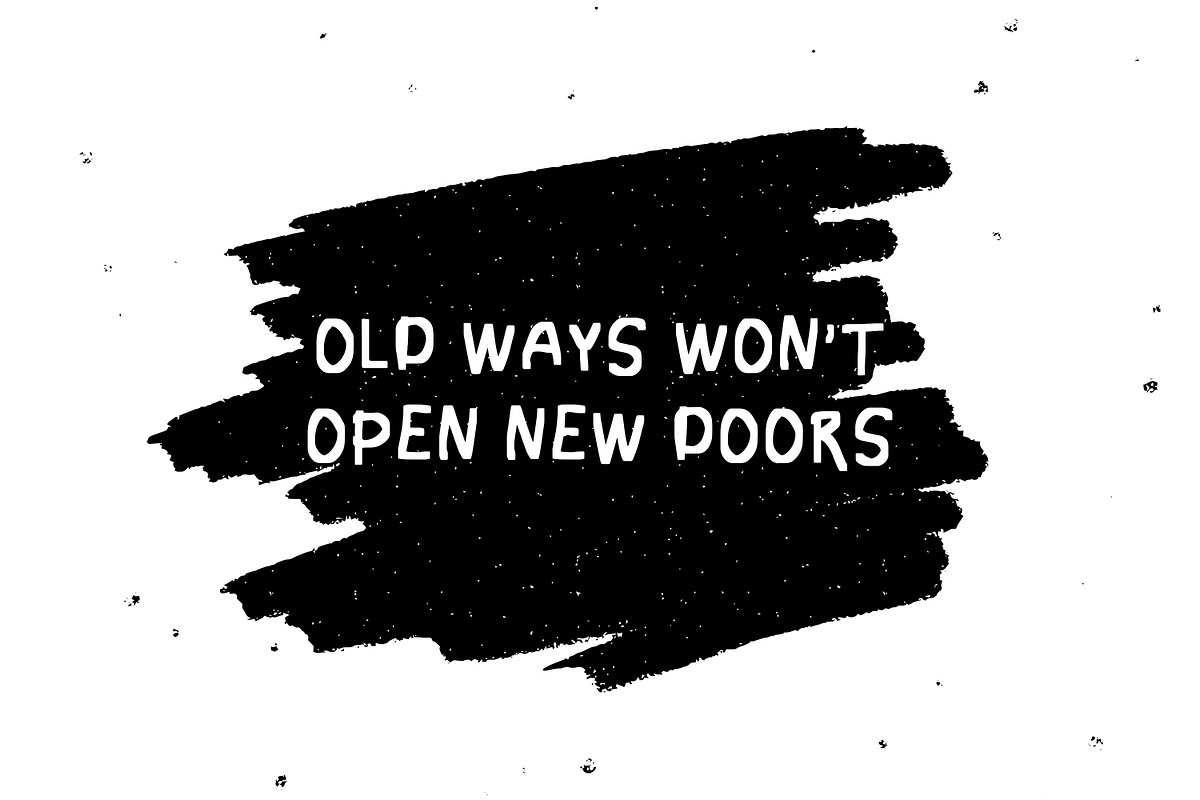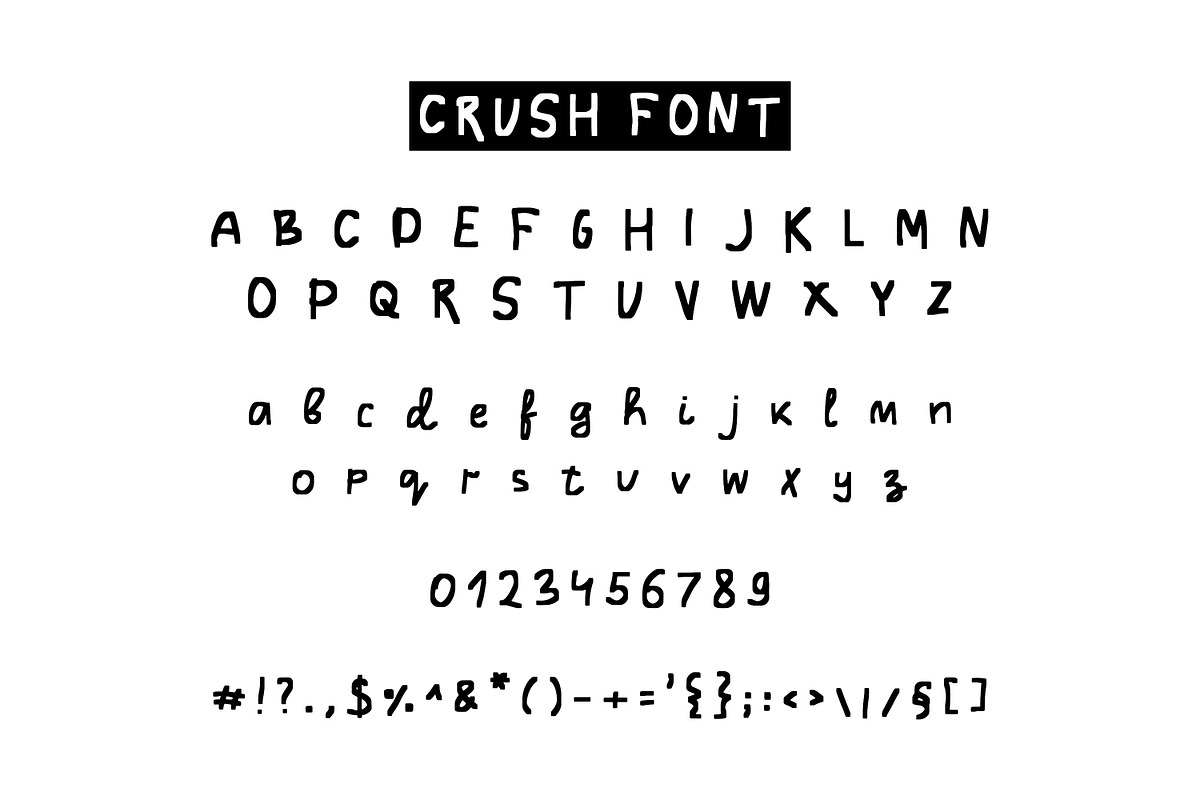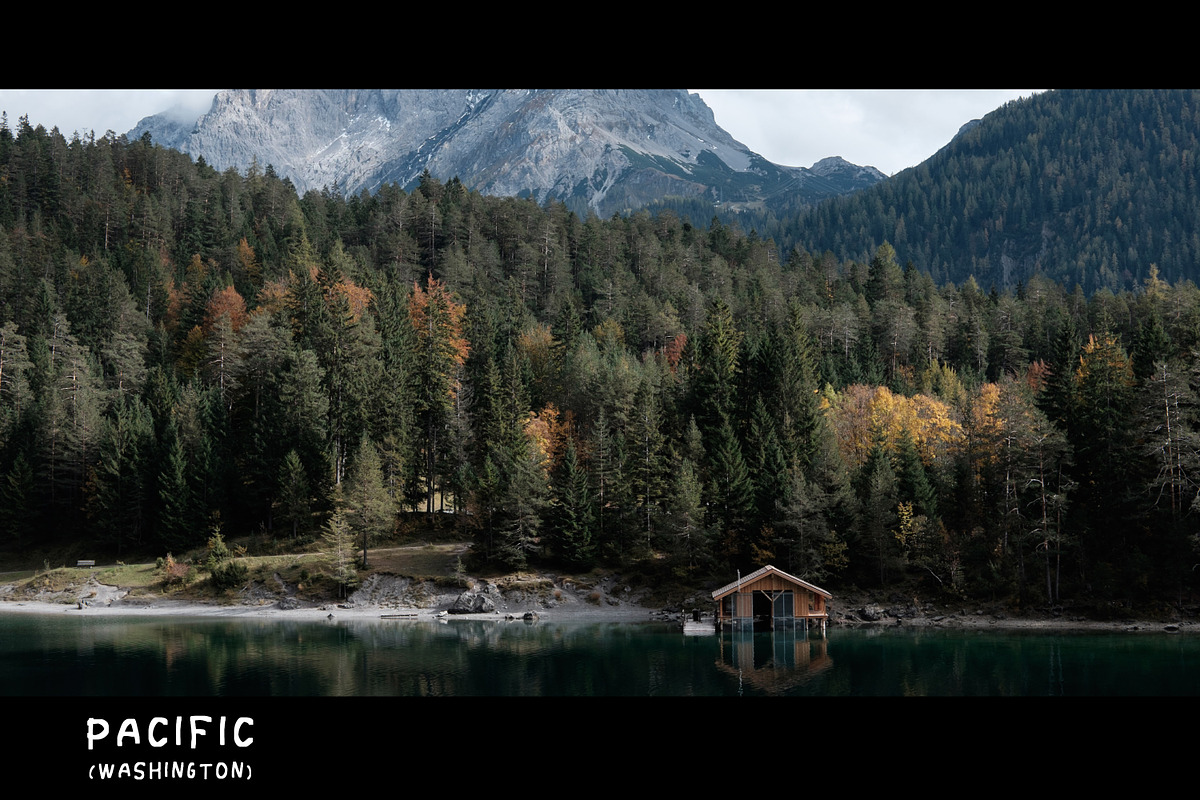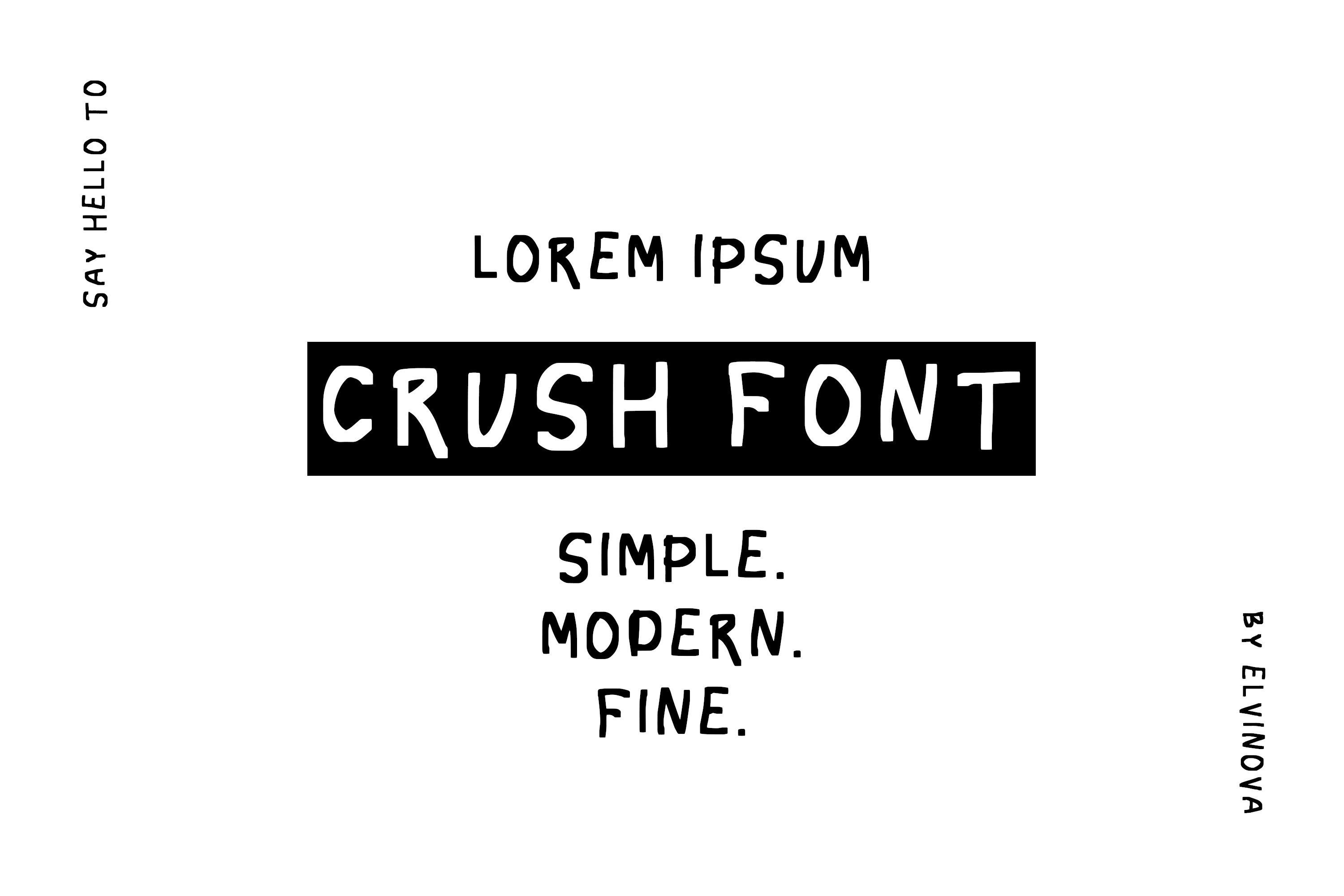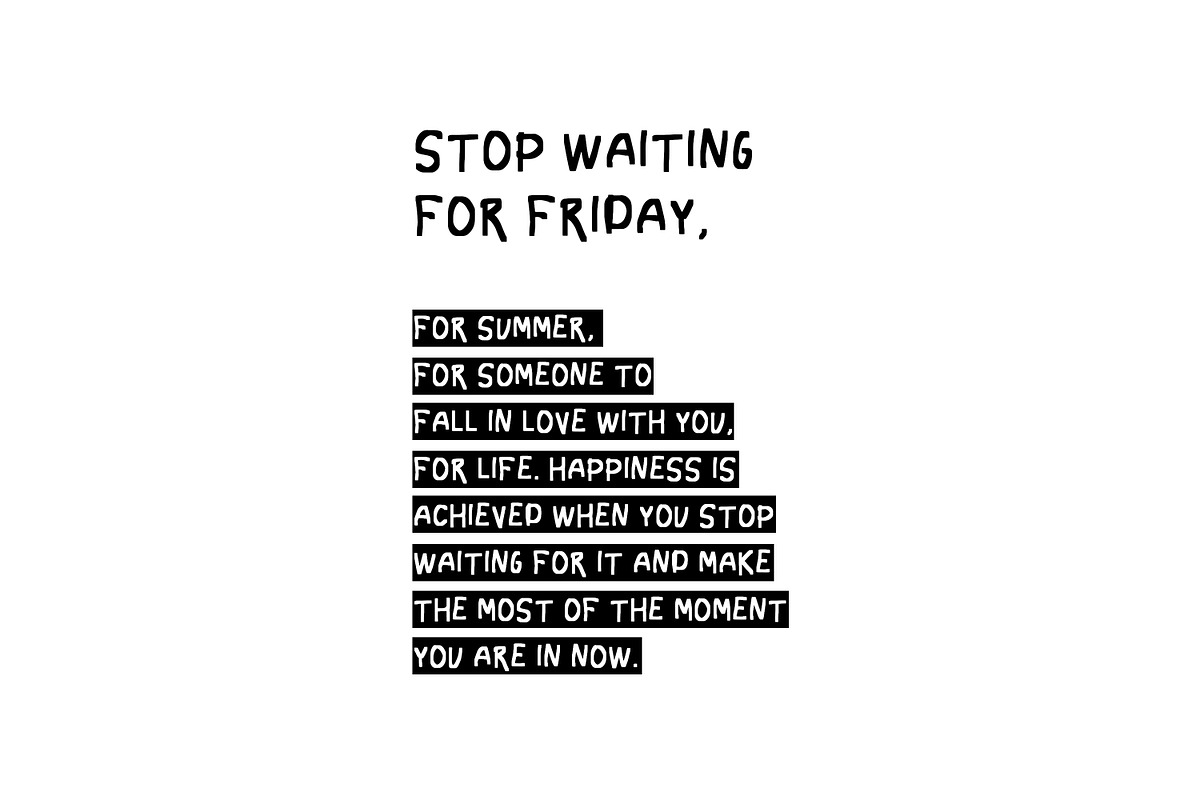
Crush playful font
Introducing the Crush font. Simple and fine. Hand lettered brush font perfect for headlines, titles, quotes, branding, etc.
Crush font containing upper & lowercase characters, punctuation and numerals (OTF).